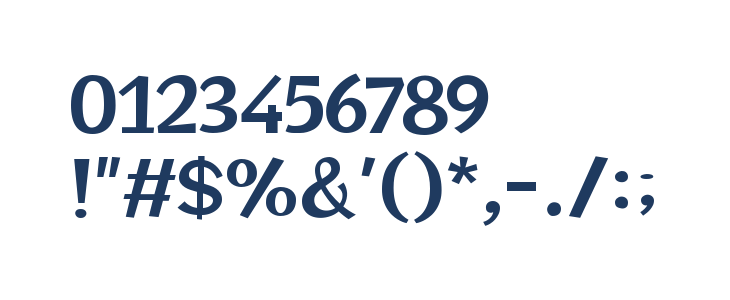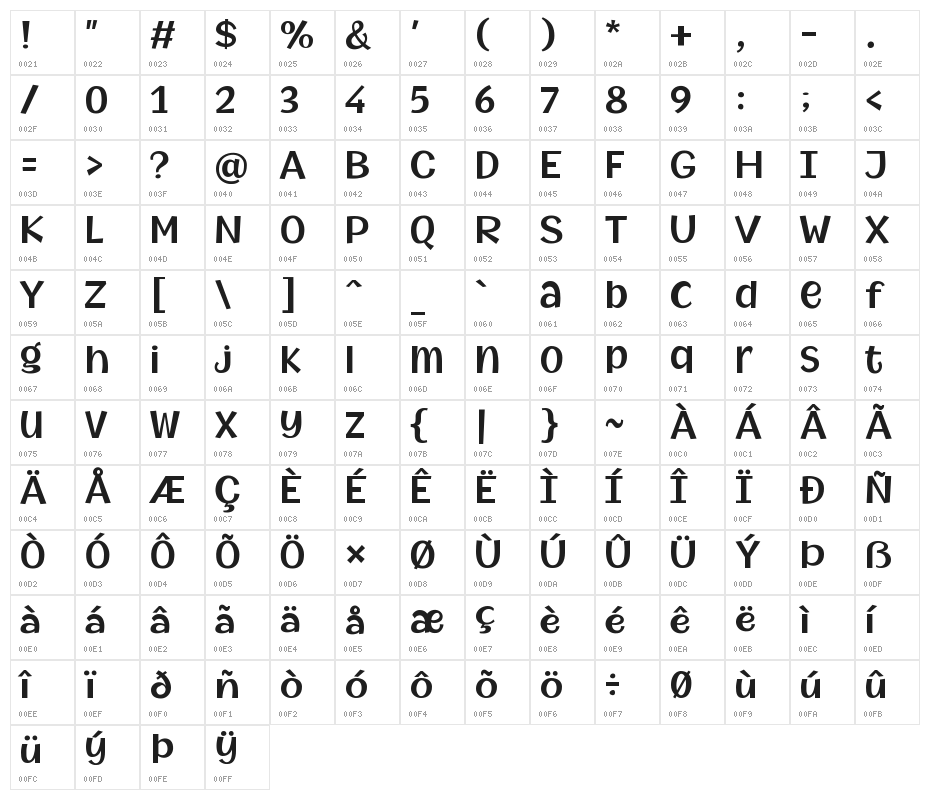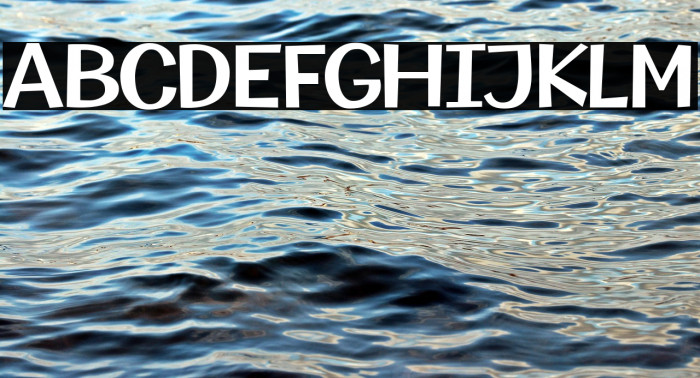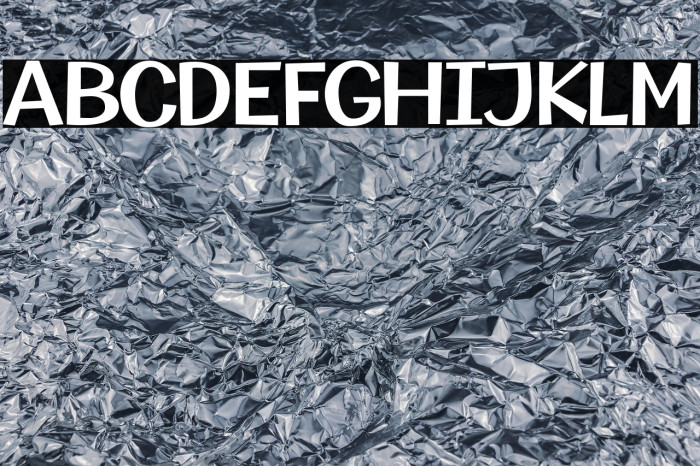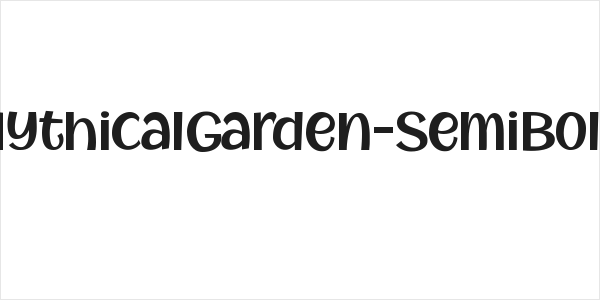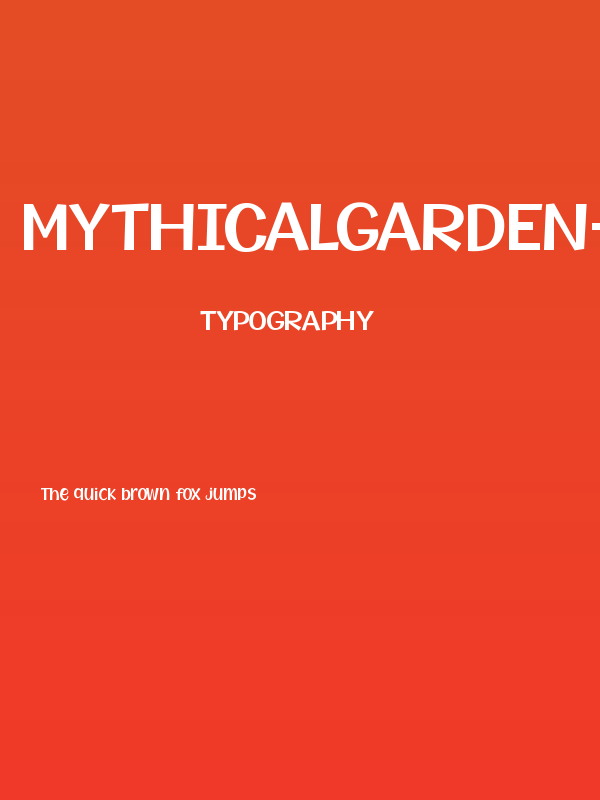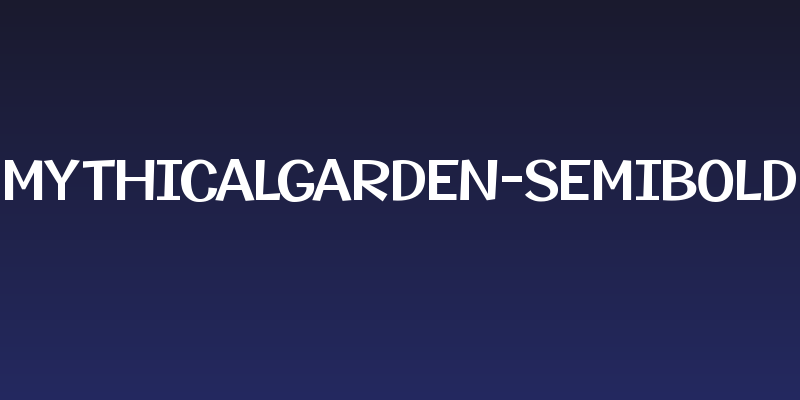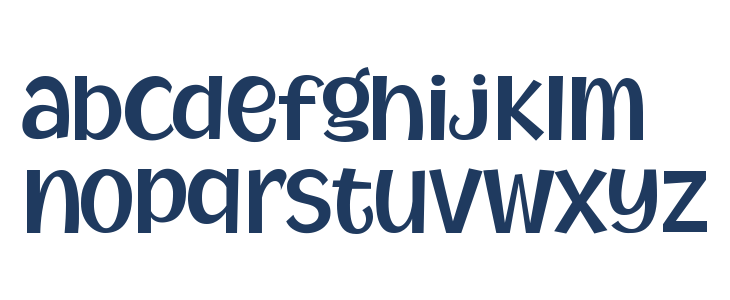
MythicalGarden-SemiBold Font
MythicalGarden-SemiBold Description
This font features a playful and whimsical design with a semi-bold weight. The characters have a unique, slightly curved structure that adds a sense of movement and energy. The uppercase letters are bold and prominent, while the lowercase letters maintain a consistent style with a touch of flair. The numerals are clear and easy to read, complementing the overall aesthetic. Special characters are creatively designed, enhancing the font's decorative appeal. The font's style is both modern and fun, making it suitable for a variety of creative projects.
| Overall Style | Modern, Whimsical |
| Proposed Projects | Ideal for children's books, playful branding, creative posters, and whimsical invitations. |